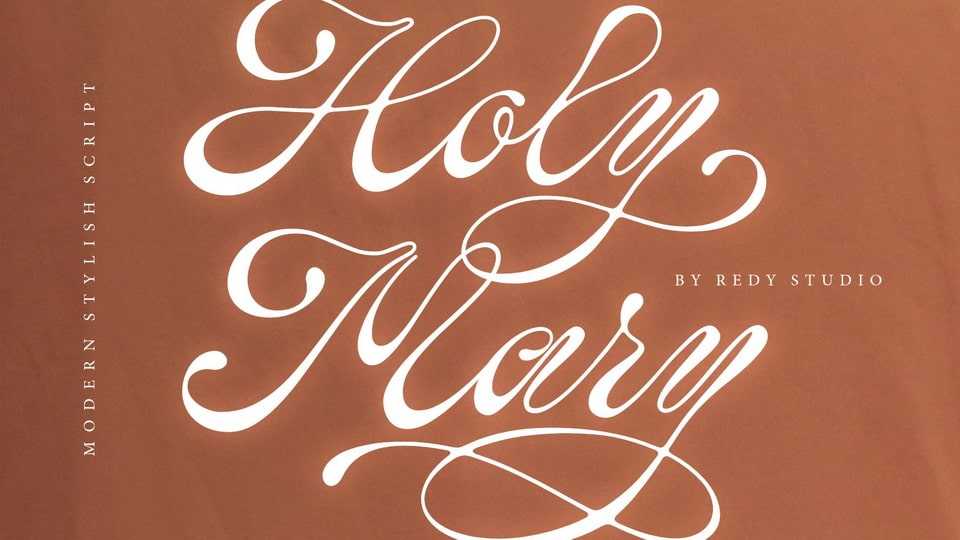
Download Holy Mary font, a lovely calligraphy typeface that writes beautifully and is easy to read. Holy Mary font will instantly make your designs stand out from the crowd, adding a unique look and touch to whatever you put it on
Designer: Redy Studio